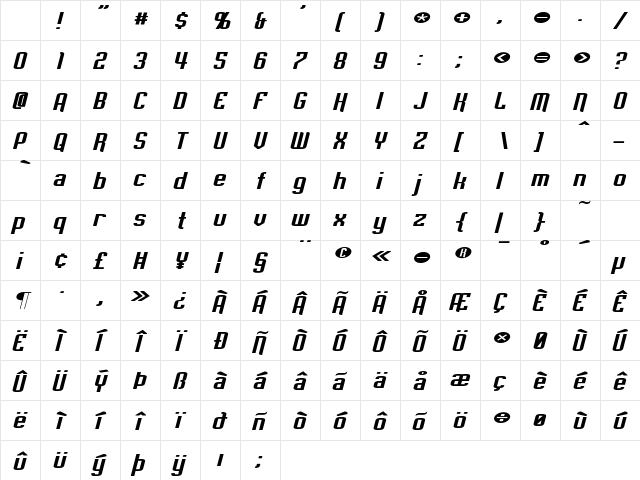
Empanada Expanded is a composed and adaptable typeface that performs quietly and consistently across a wide range of design contexts. The slanted form adds forward momentum and visual energy.
Pro Tip: Use Empanada Expanded for emphasis, pull quotes, and subheadings where its slanted energy can add rhythm to the layout.